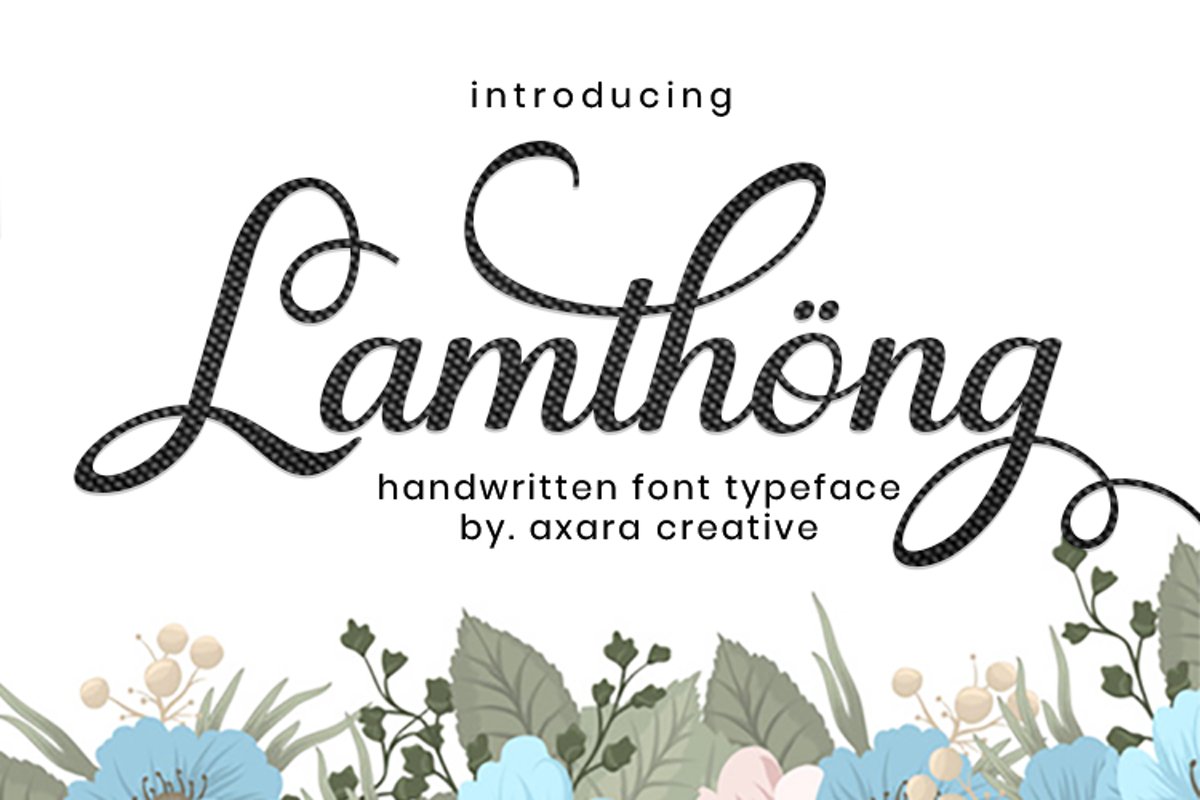
Lamthong
Lamthong feels equally charming and elegant. This stunning handwritten font is a stylish homage to classic calligraphy. This font is the perfect fit for all of your logos, branding, social media, and crafty DIY projects.
Main Features :
• Stylistic Alternate
• Contextual Alternate
• Numeral
• Punctuation
• Swash Variant
• Tone of Glyps